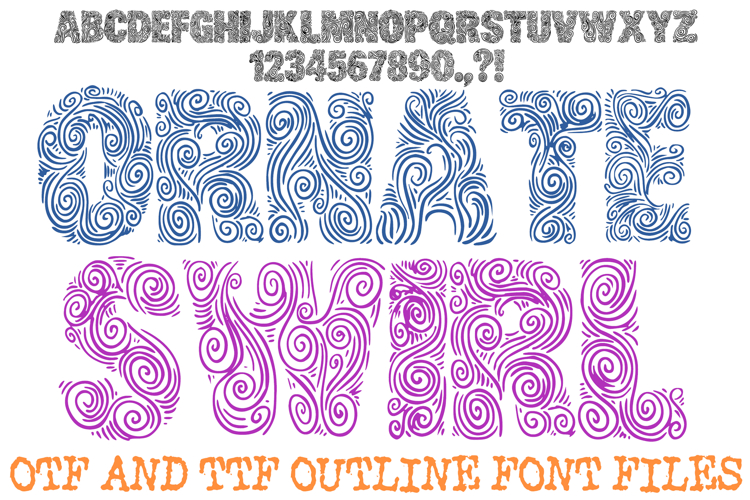
Ornate Swirl Font Zen Whirl Doodle Lettering ABC OTF Type
Elevate your artistic projects with the mesmerizing Ornate Swirl Font! This hand-drawn display alphabet features bold, blocky character silhouettes filled with an intricate, high-detail pattern of swirls, curls, and zentangle-inspired lines. It is the ultimate choice for adult coloring pages, sophisticated branding, bohemian-style wedding stationery, and any creative project that requires a high-impact, artisan touch.
The dense, swirling details create a stunning visual texture that ensures your headlines and titles capture attention instantly. Whether you are designing for a luxury boutique, creating printable home decor, or working on complex digital scrapbooking layouts, the Ornate Swirl Font provides a professional, hand-crafted aesthetic that feels truly unique.
Why Your Designs Will Stand Out:
Intricate Internal Patterns: Every letter and number is meticulously filled with organic, curly line art that offers a beautiful "zen" look.
Bold Block Silhouettes: The heavy, thick shapes of the characters ensure excellent legibility even with the highly detailed internal decorations.
Hand-Drawn Authenticity: The subtle, organic variations in the swirl patterns provide a custom, sketchbook feel that standard digital fonts cannot replicate.